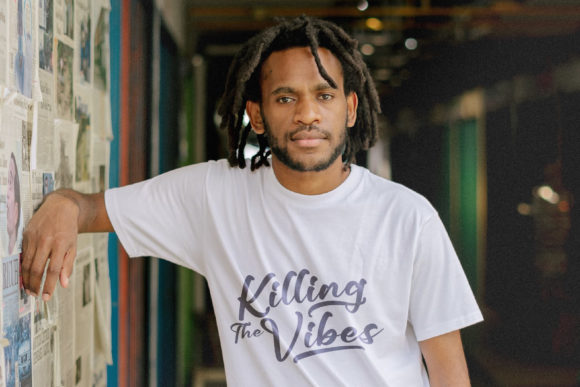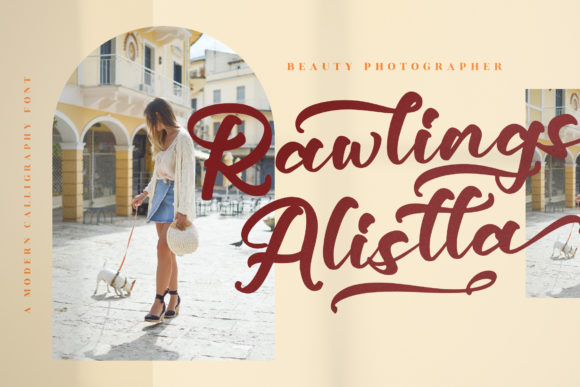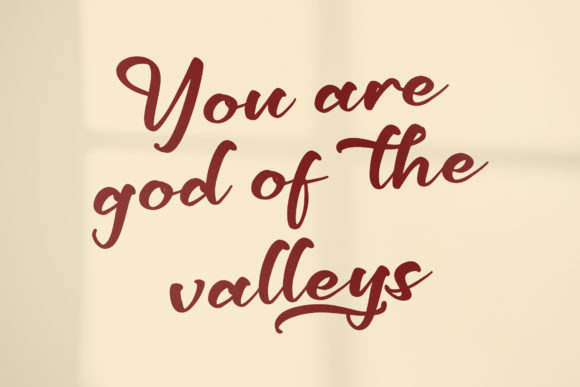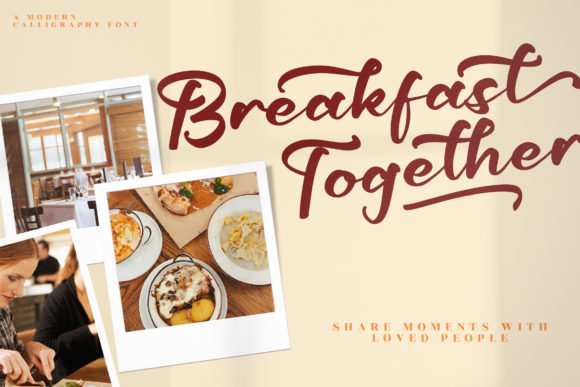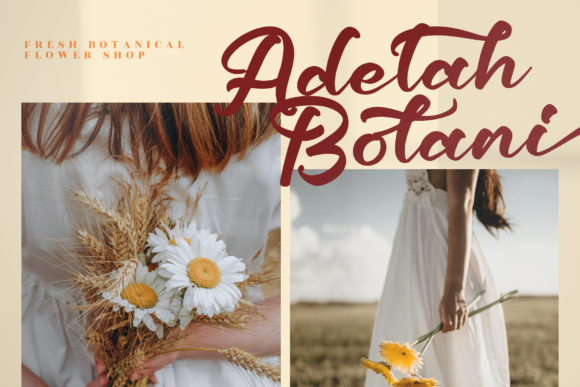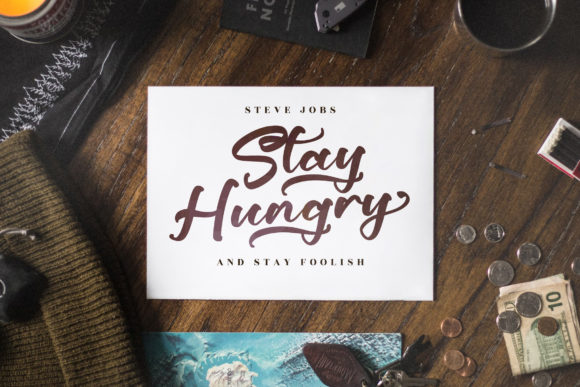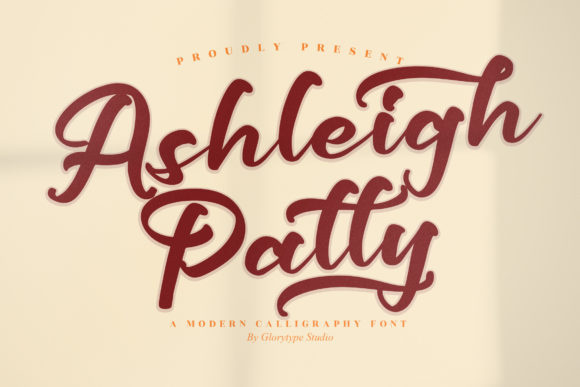
Ashleigh Patty Font: Elevate Your Designs with Modern Calligraphy
Are you a designer or crafter looking for a beautiful script font to add a touch of elegance to your projects? Look no further than the Ashleigh Patty Font, a modern calligraphy font perfect for a wide range of applications. In this article, we’ll explore the features and benefits of this stunning font, and how it can elevate your designs to the next level.
What is Ashleigh Patty Font?
Ashleigh Patty Font is a modern calligraphy font designed to bring a touch of sophistication and style to your designs. With its flowing lines and elegant lettering, this font is perfect for creating beautiful and eye-catching projects. Whether you’re working on a logo, branding project, homeware design, or product packaging, Ashleigh Patty Font is the perfect choice.
Key Features of Ashleigh Patty Font
So, what makes Ashleigh Patty Font so special? Here are just a few of its key features:
- PUA Encoded: Ashleigh Patty Font is PUA encoded, which means you can access all of the glyphs and swashes with ease. This makes it simple to customize your designs and add unique touches.
- Modern Calligraphy Style: With its modern calligraphy style, Ashleigh Patty Font is perfect for creating designs that are both elegant and sophisticated.
- Versatile: This font is suitable for a wide range of applications, including logos, branding projects, homeware designs, product packaging, mugs, quotes, posters, shopping bags, t-shirts, book covers, name cards, invitation cards, greeting cards, labels, photography, watermark, and more.
Uses for Ashleigh Patty Font
The versatility of Ashleigh Patty Font is one of its greatest strengths. Here are just a few examples of how you can use this font in your designs:
- Logos and Branding: Create a stunning logo or branding project with Ashleigh Patty Font. Its modern calligraphy style is perfect for businesses that want to look elegant and sophisticated.
- Homeware Designs: Add a touch of elegance to your homeware designs with Ashleigh Patty Font. This font is perfect for creating beautiful quotes, posters, and labels for your home.
- Product Packaging: Make your product packaging stand out with Ashleigh Patty Font. This font is perfect for creating eye-catching labels and packaging that will set your products apart.
- Mugs and Apparel: Create beautiful mugs, t-shirts, and other apparel with Ashleigh Patty Font. This font is perfect for adding a touch of elegance to your designs.
Benefits of Using Ashleigh Patty Font
So, why should you choose Ashleigh Patty Font for your designs? Here are just a few benefits of using this font:
- Elegant and Sophisticated: Ashleigh Patty Font is perfect for creating designs that are both elegant and sophisticated.
- Versatile: This font is suitable for a wide range of applications, making it a great addition to any designer’s toolkit.
- Easy to Use: With its PUA encoding, Ashleigh Patty Font is easy to use and customize.
- High-Quality: Ashleigh Patty Font is a high-quality font that is designed to produce beautiful results.